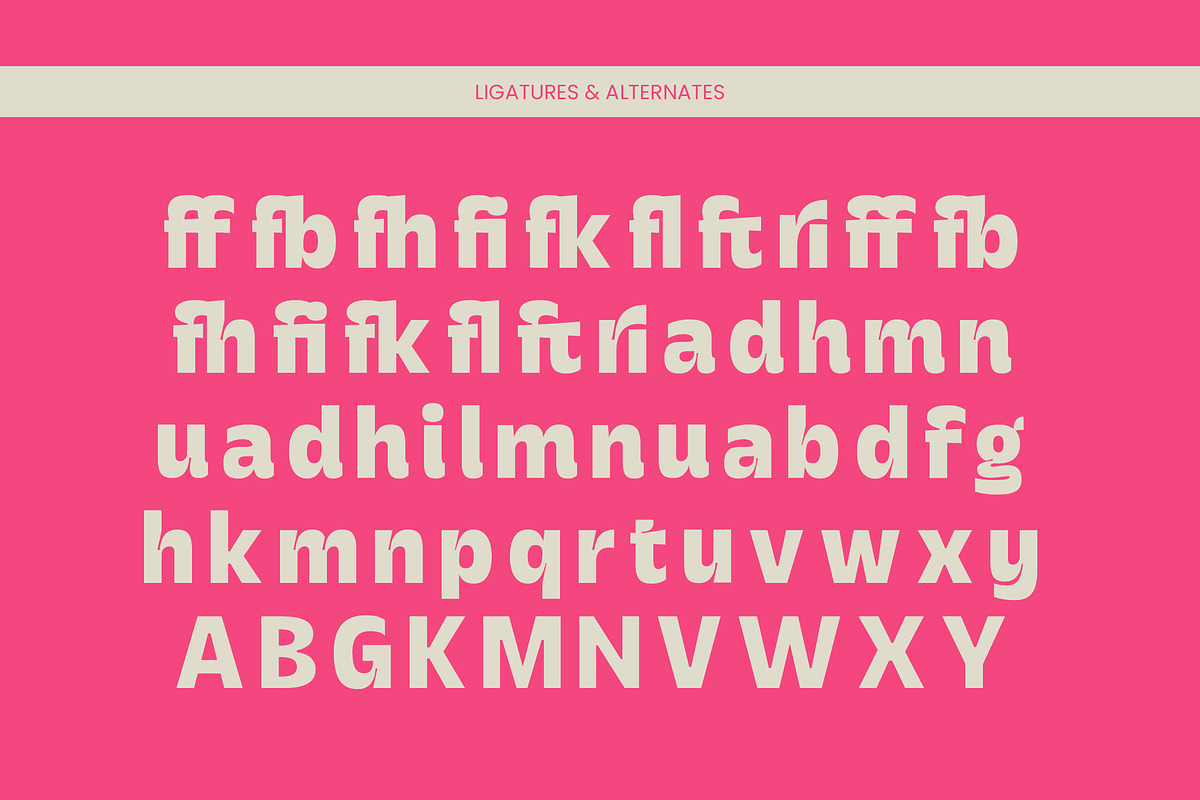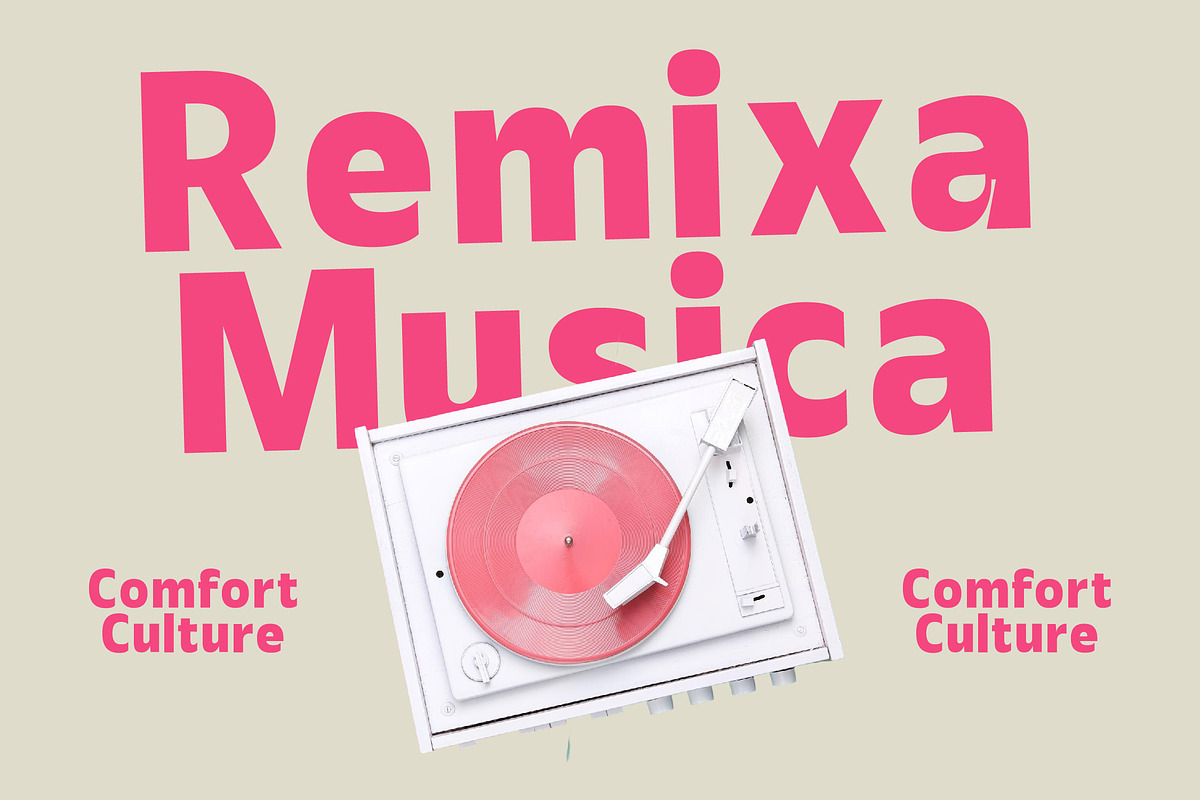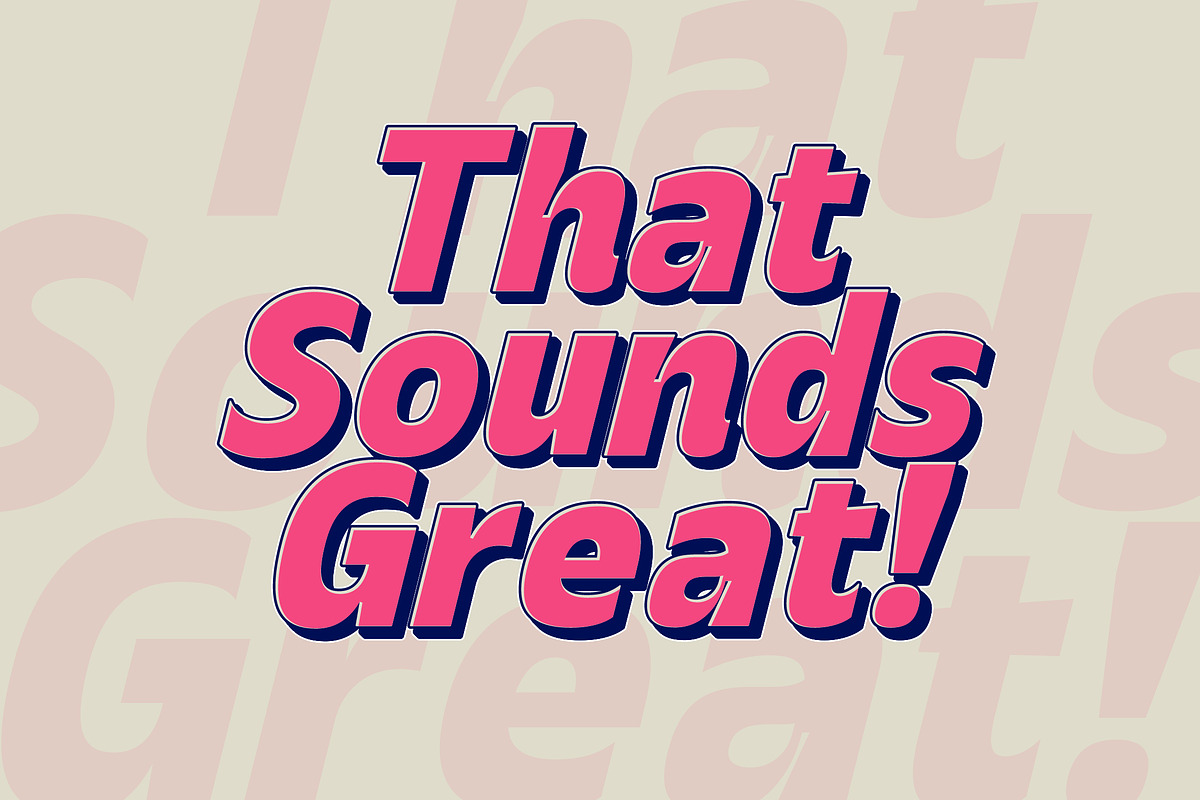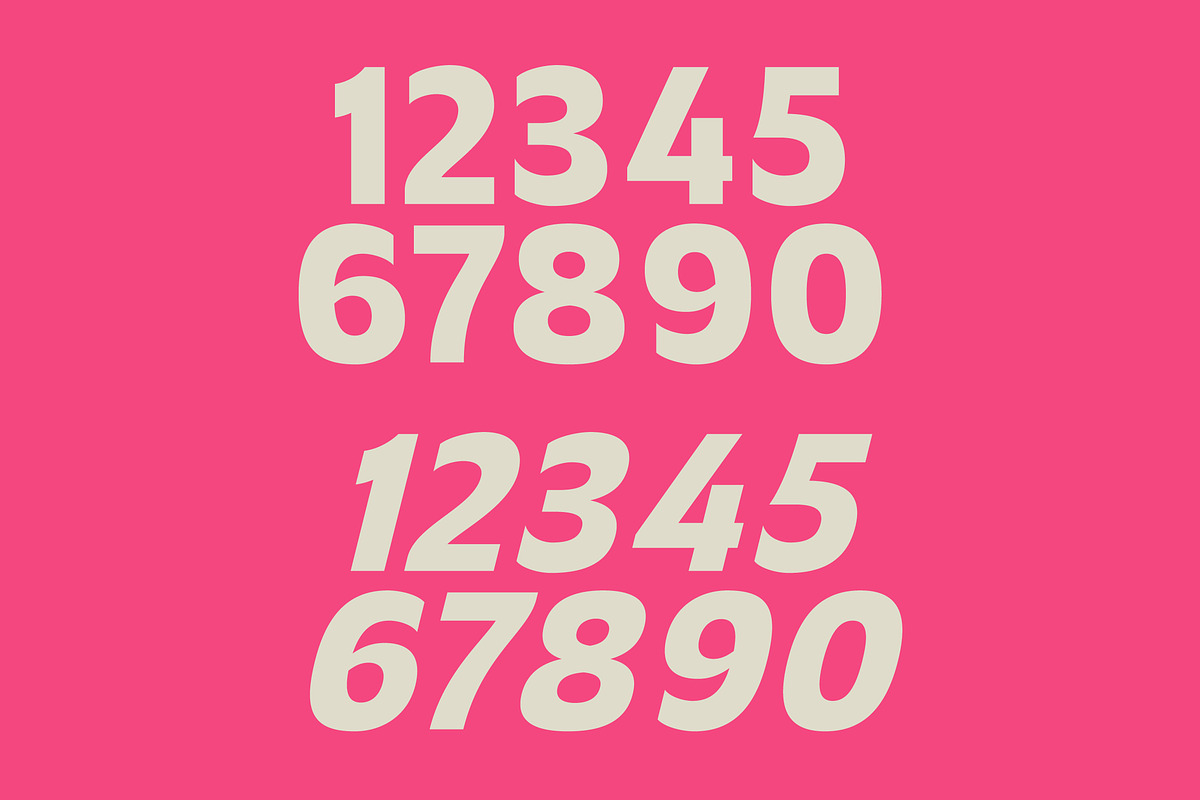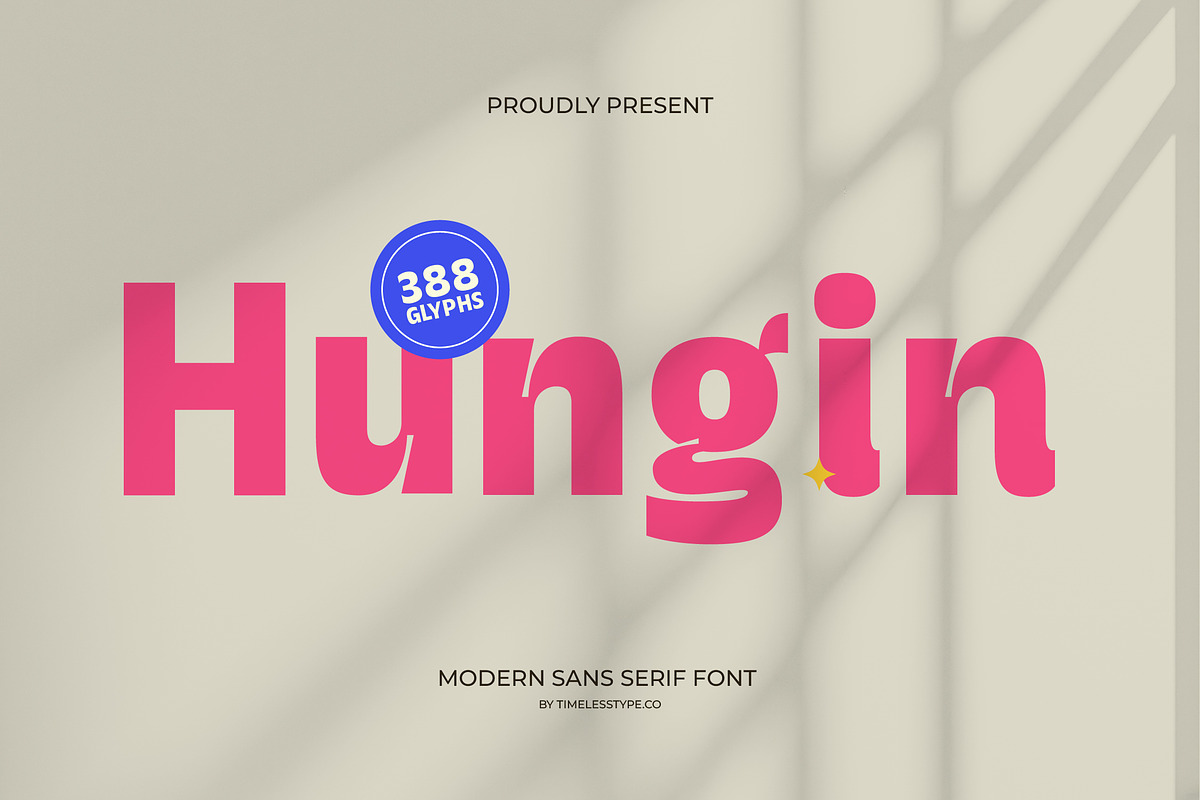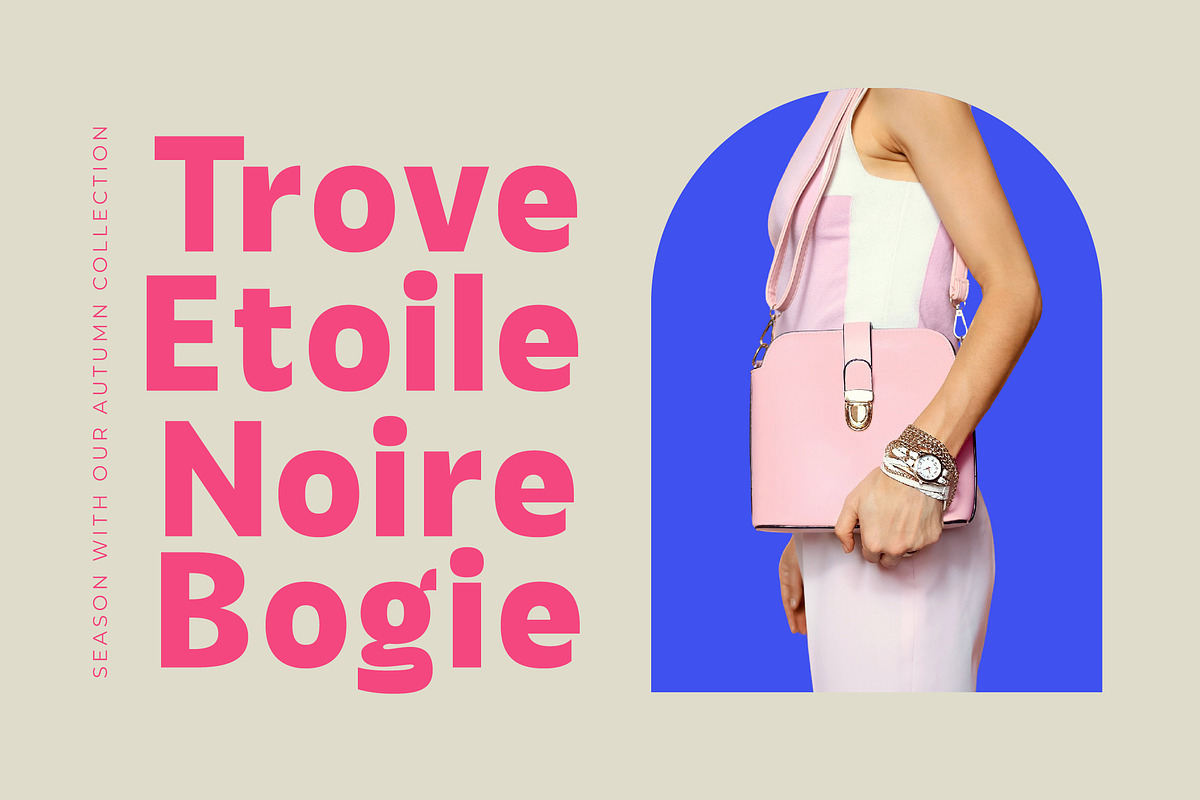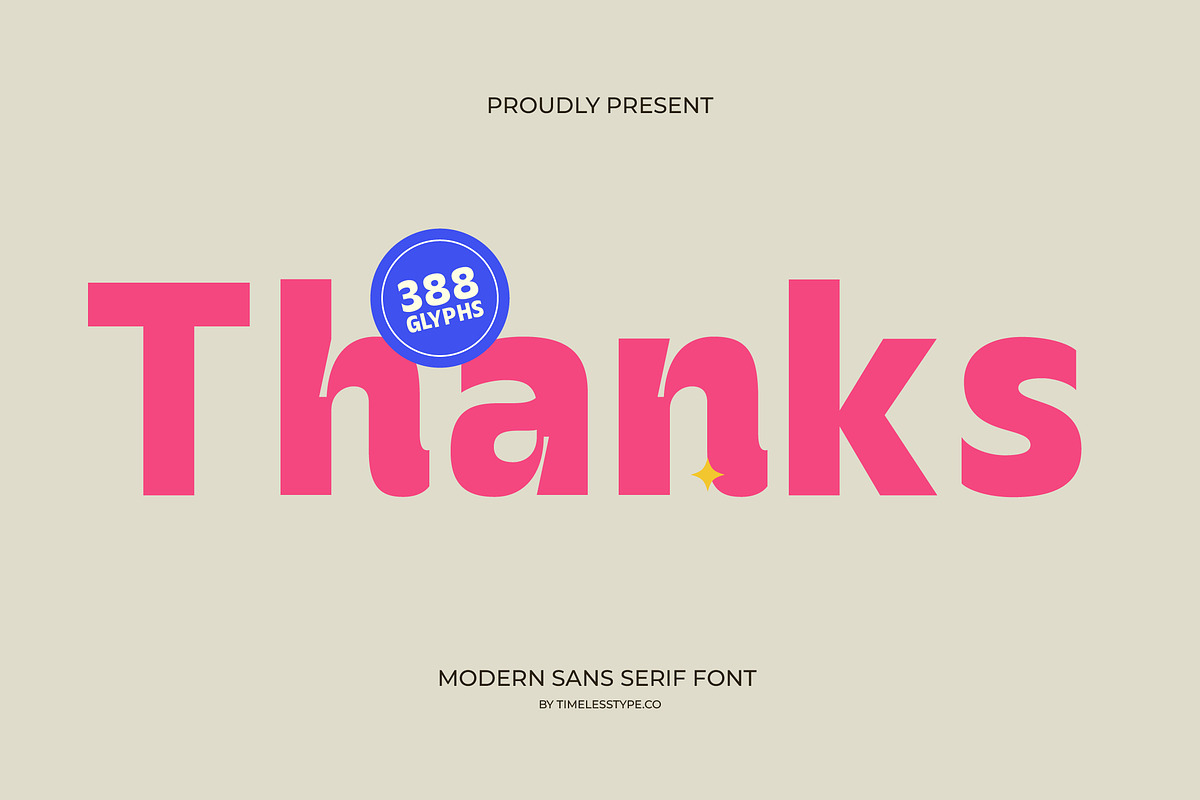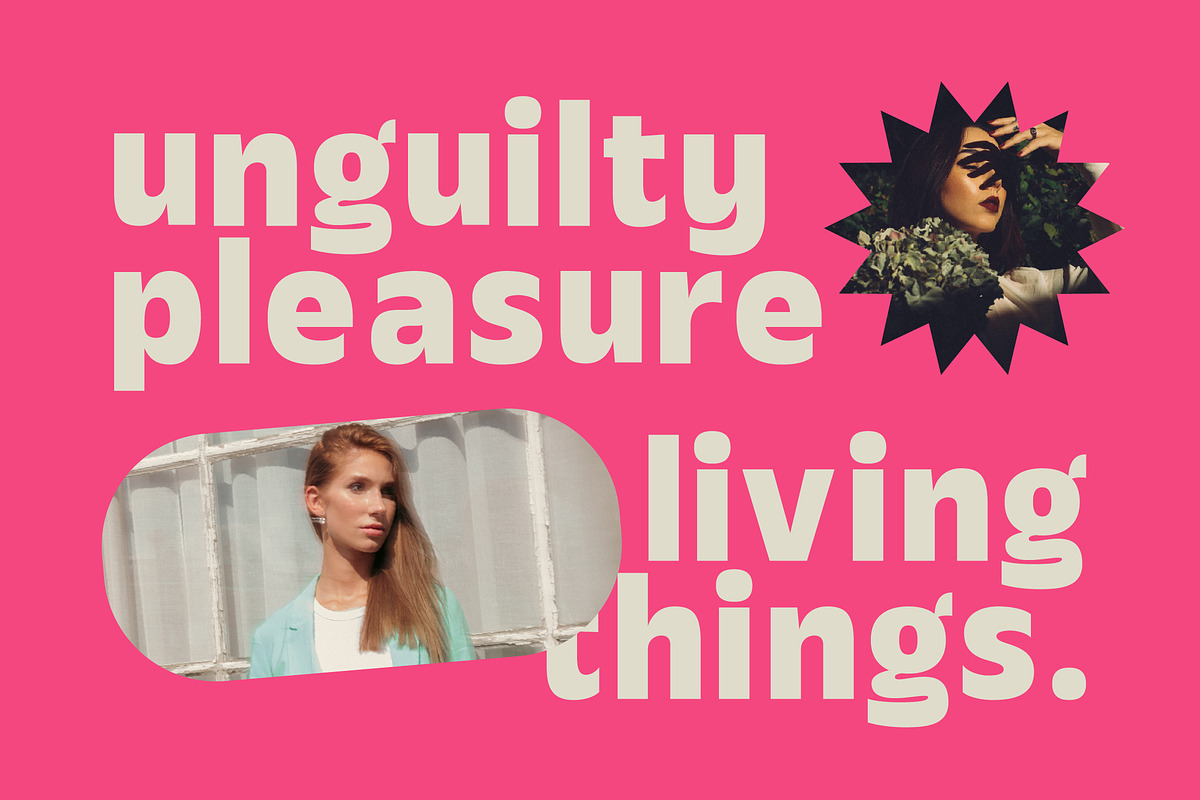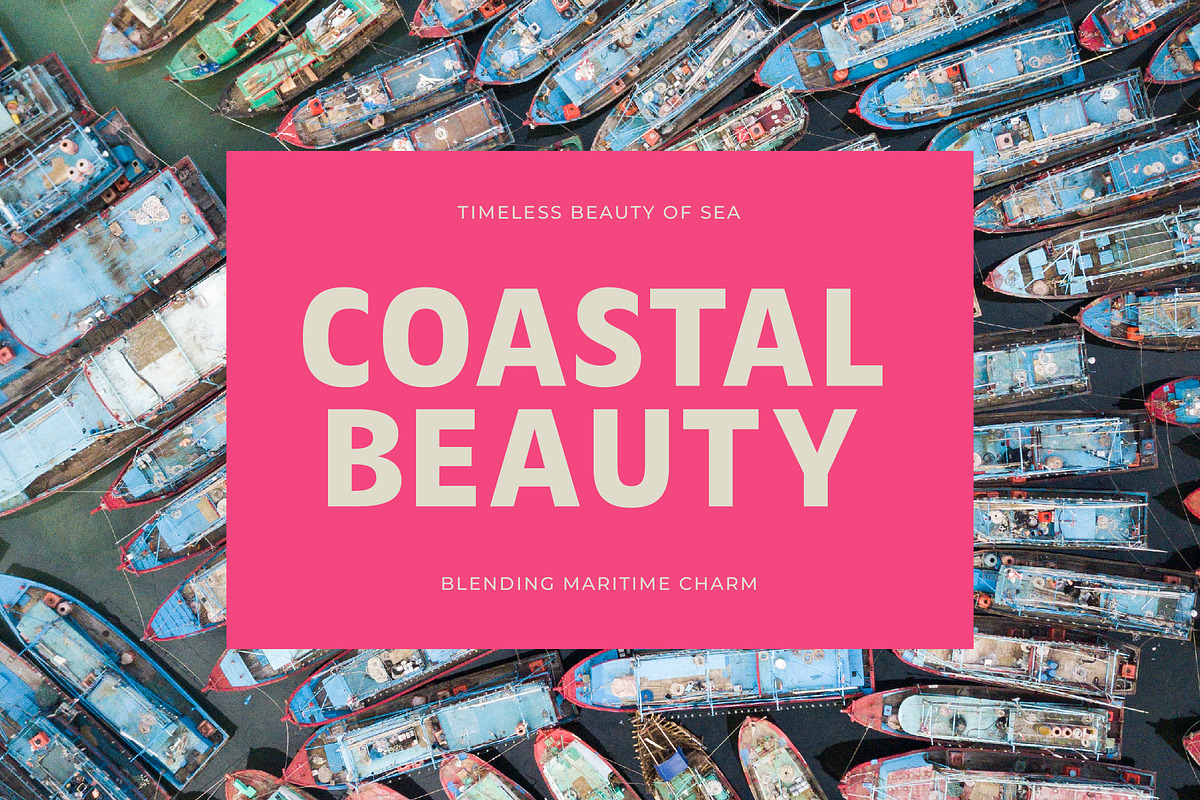
Hungin Modern Bold Sans Serif
Experience the perfect harmony of bold confidence and refined playfulness with Hungin, a typeface designed to command attention from the first glance. This font transcends traditional boundaries, offering a sophisticated edge that brings your creative visions to life with unparalleled clarity and style.
Inspired by the intersection of mid-century aesthetics and contemporary digital minimalism, the design captures a rhythmic flow of heavy weights and smooth curves. It draws from the world of high-end boutique signage and the effortless chic of modern urban environments, making it a timeless addition to any designer's toolkit.
This typeface delivers a powerful modern serif display energy with its unique sans-serif construction, providing the luxury typography feel required for premium projects. Its bold presence acts as a high-contrast serif alternative, functioning as a top-tier editorial font that ensures every word carries a significant branding impact.
Tapping into the current modern serif trend, this typeface brings a fresh perspective to editorial display fonts by blending geometric stability with organic flair. It stands at the forefront of character-driven typography, making it a versatile choice for designers who want to stay ahead of the curve in a fast-evolving visual landscape.
Perfect for logo design and comprehensive branding identity systems, it also shines in high-fashion editorial layouts. Whether you are creating striking packaging for artisanal products, elegant wedding invitations with a modern twist, or bold headlines for fashion magazines, this font adapts effortlessly to your needs.
Beyond its visual appeal, the font is packed with technical versatility including a wide array of ligatures and unique alternates that allow for custom typographic flourishes. It features comprehensive multilingual support and a vast set of international characters, including 388 glyphs and additional swashes to ensure global compatibility for all your creative design needs.
- Ligature 16 Alternate 42